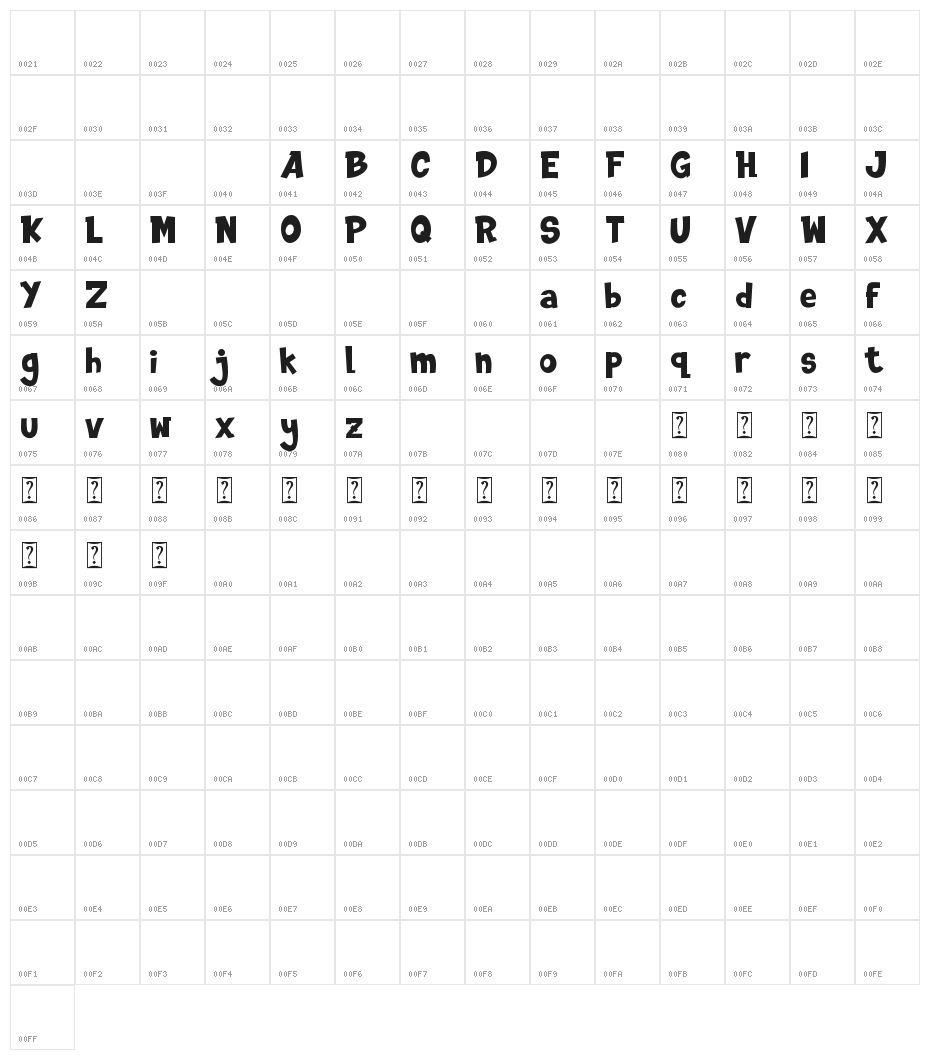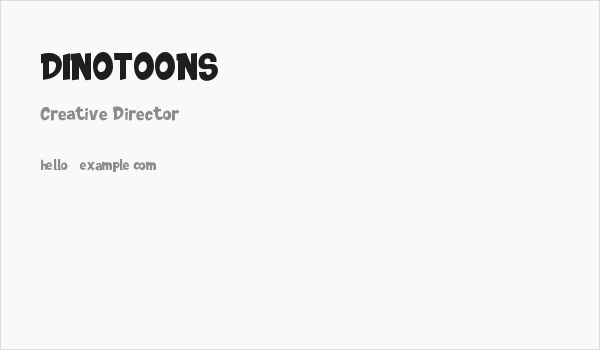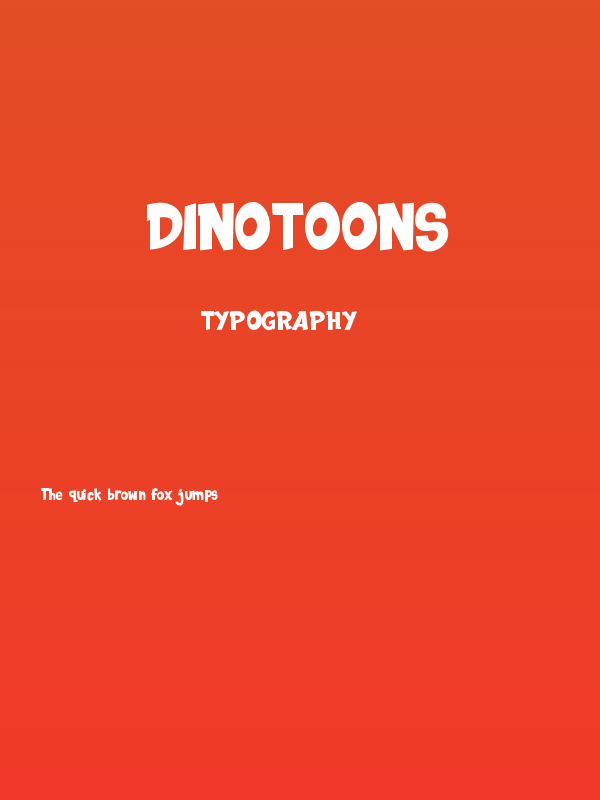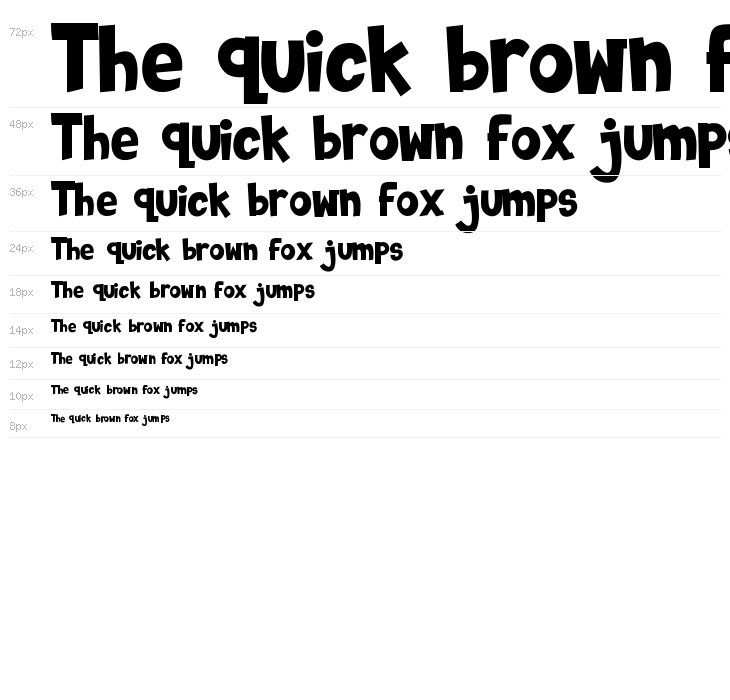
DINOTOONS Font
DINOTOONS Description
This playful and bold font features a cartoonish style with exaggerated curves and angles, giving it a lively and dynamic appearance. The uppercase letters are robust and slightly irregular, adding to the whimsical feel. Lowercase letters maintain the same playful essence, with rounded forms and a friendly demeanor. The font's thick strokes and unique character shapes make it stand out, ideal for capturing attention in fun and informal contexts.
Overall StylePlayful, Cartoonish
Proposed ProjectsPerfect for children's books, comic strips, playful branding, and party invitations.